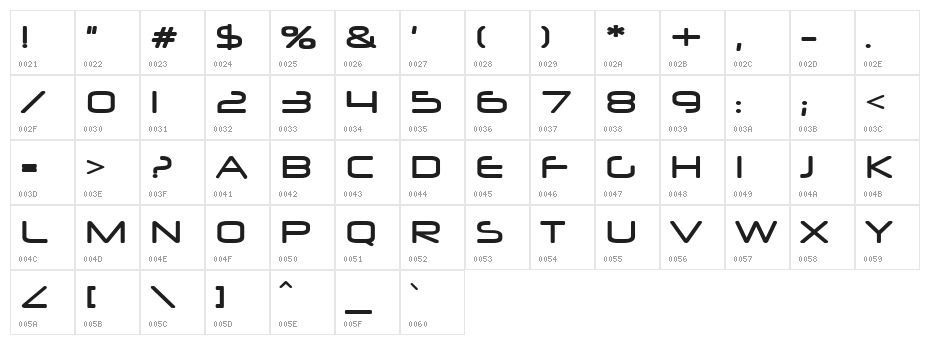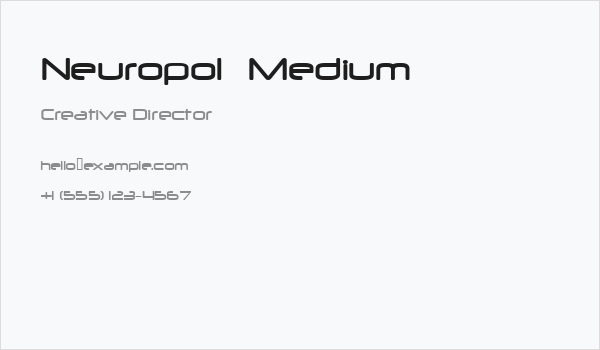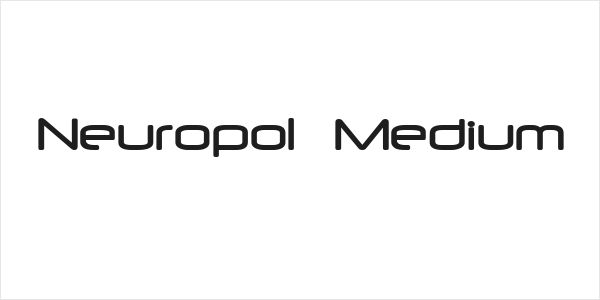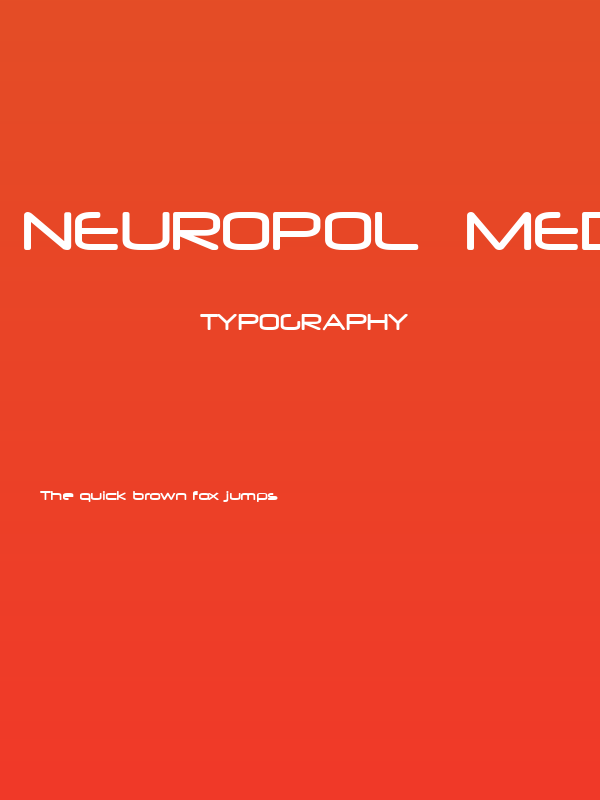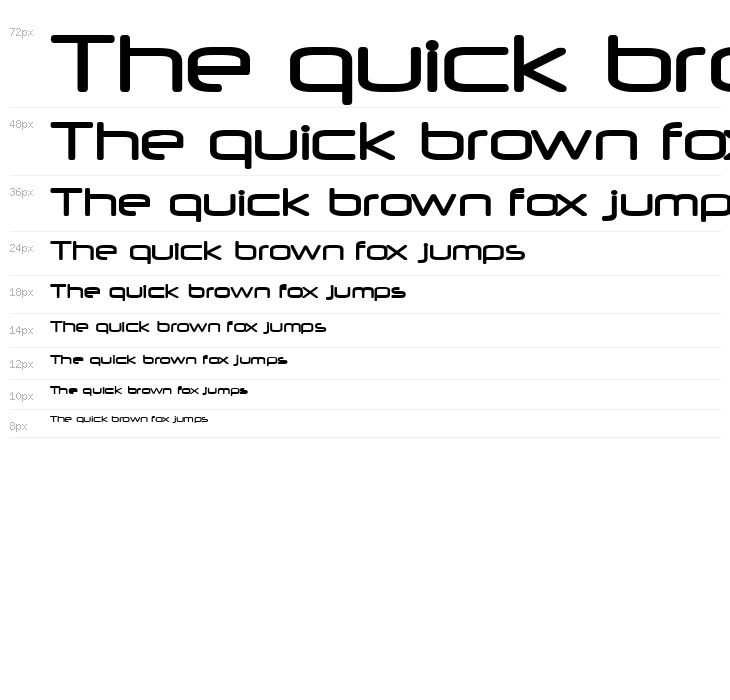
Neuropol Medium Font
Neuropol Medium Description
This font features a futuristic and sleek design, characterized by its geometric and rounded letterforms. The characters exhibit a uniform stroke width, creating a clean and modern appearance. The uppercase and lowercase letters maintain a consistent style, with smooth curves and minimalistic details. The numerals and special characters are designed to complement the overall aesthetic, ensuring readability and visual harmony. This font's distinct style makes it suitable for projects that require a contemporary and tech-inspired look.
| Use Case | Headlines, Logos, Digital interfaces |
| Proposed Projects | Ideal for technology branding, sci-fi themed designs, modern advertising, and digital interfaces. |